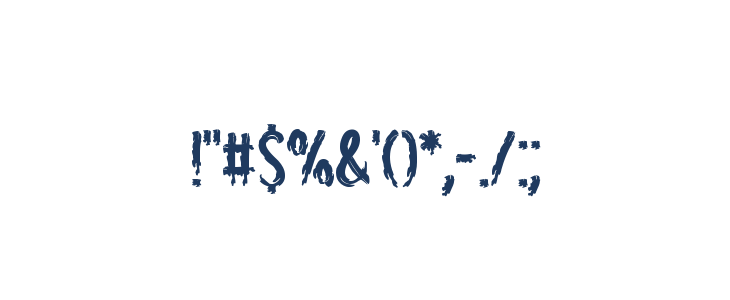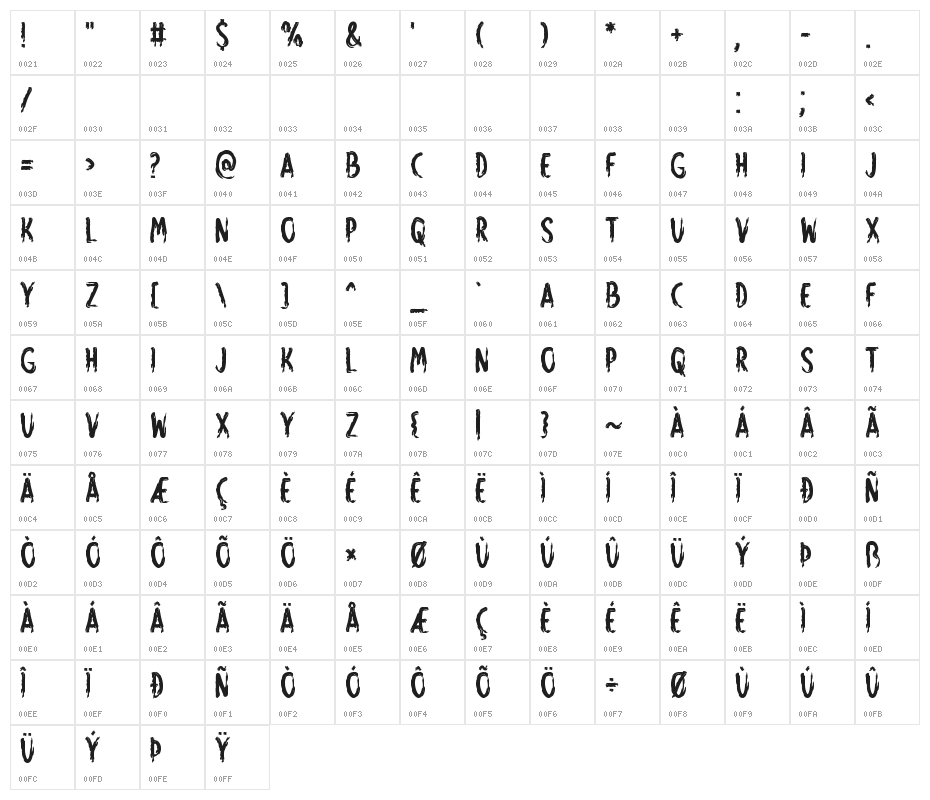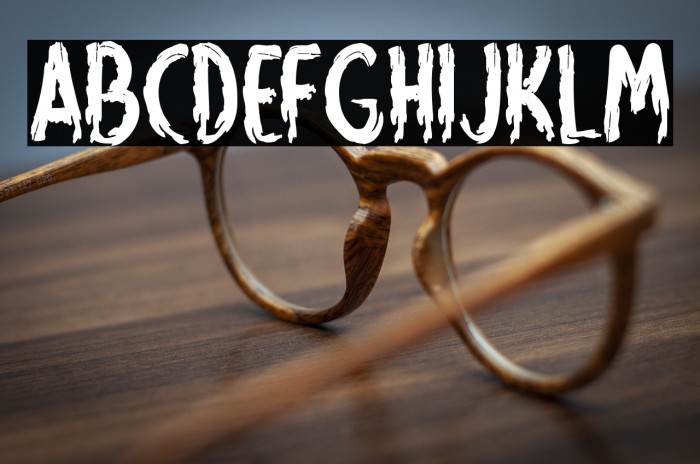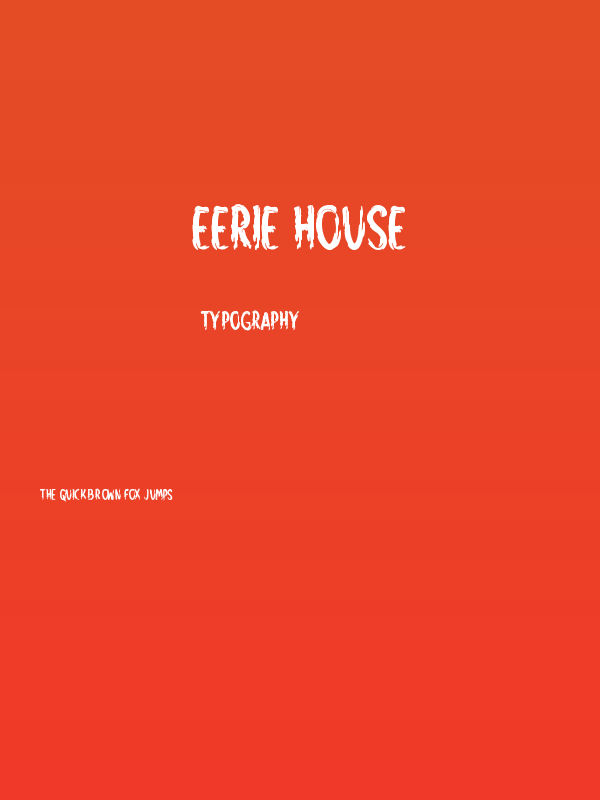
Eerie House Font
This font features a spooky, distressed style with jagged edges and irregular strokes, evoking a sense of horror and mystery. The characters appear as if they are dripping or melting, adding to the eerie atmosphere. The uppercase and lowercase letters maintain a consistent theme, with each character uniquely crafted to enhance the unsettling vibe. The numbers and special characters follow the same design principles, ensuring a cohesive look across all glyphs. This font is perfect for creating a chilling effect in any design project.
Proposed ProjectsIdeal for Halloween-themed designs, horror movie posters, haunted house flyers, and spooky event invitations.